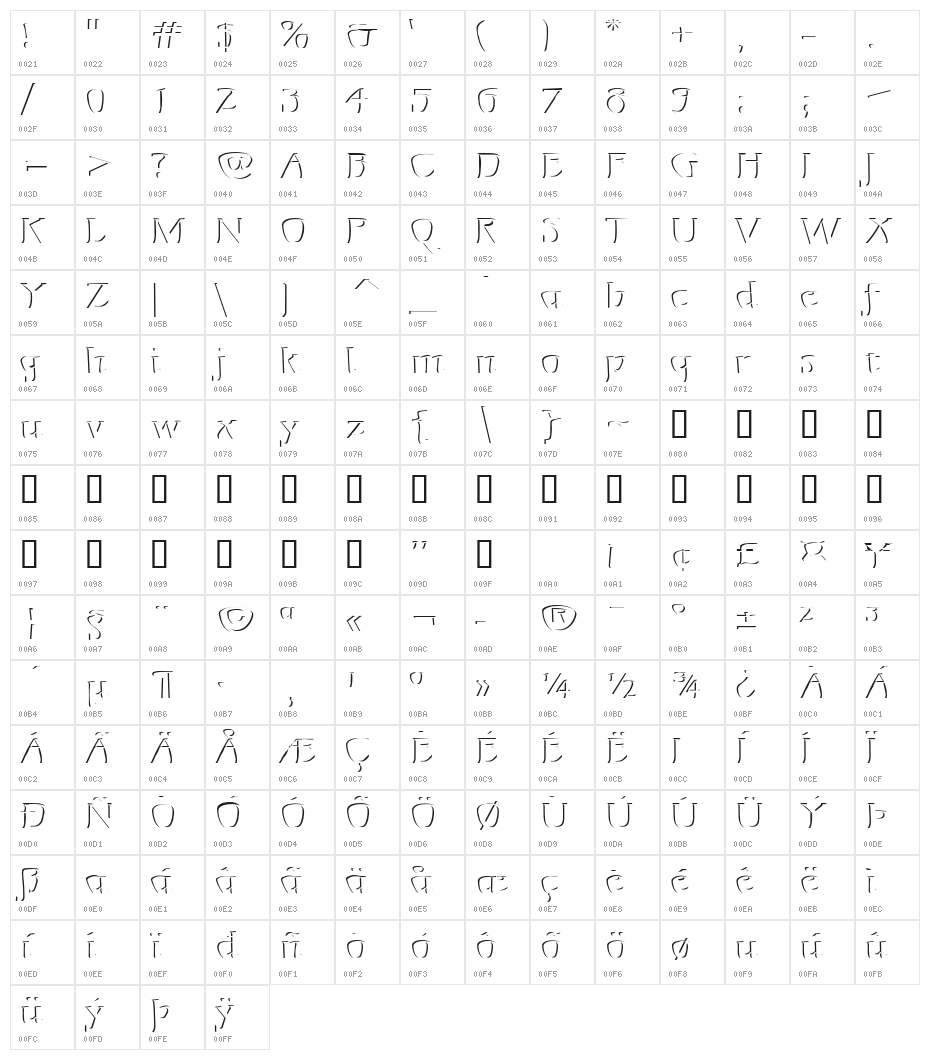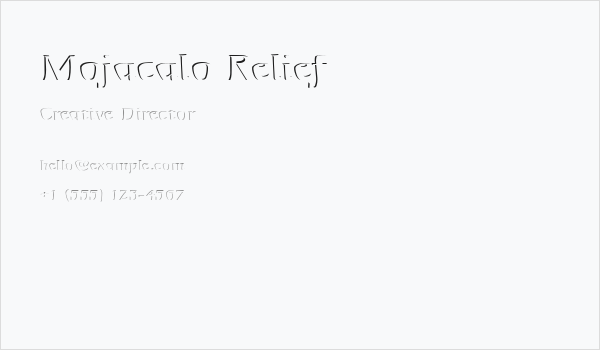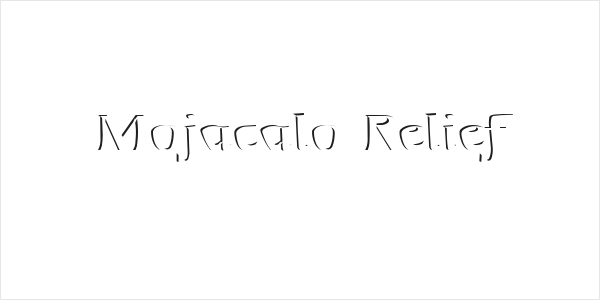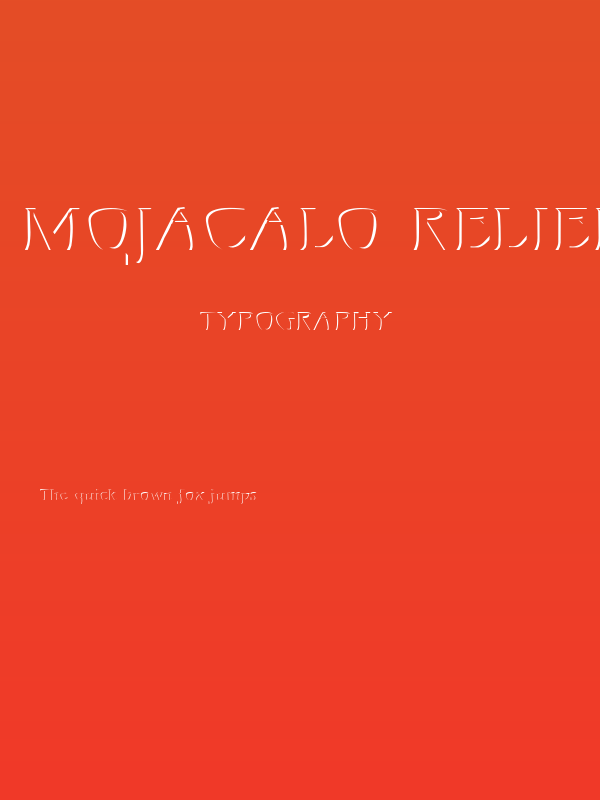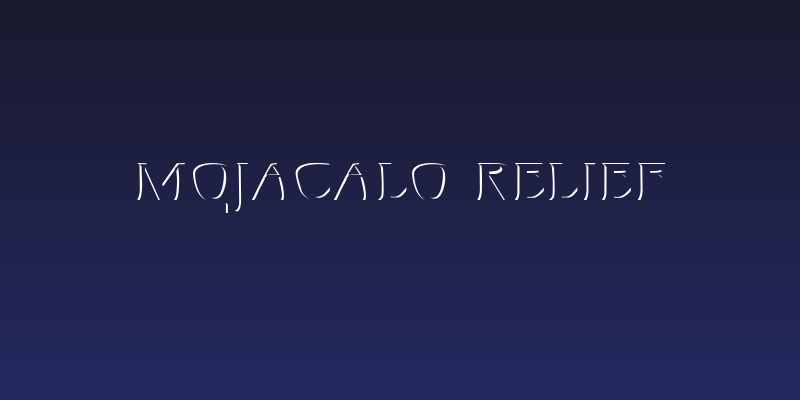
Mojacalo Relief Font
Mojacalo Relief Description
This font features a unique and artistic design with a relief effect, creating an illusion of depth and texture. The characters are crafted with a combination of sharp angles and smooth curves, giving it a dynamic and modern appearance. The uppercase letters are bold and prominent, while the lowercase letters maintain a consistent style with slightly less emphasis. The numerals are distinct and easily readable, complementing the overall aesthetic. Special characters are included, maintaining the same artistic flair. This font is suitable for creative projects that require a standout and visually engaging typeface.
| Proposed Projects | Ideal for branding, poster design, album covers, and creative digital art projects. |